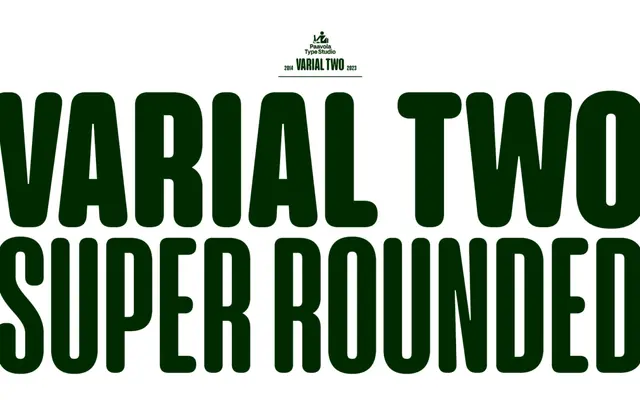
Varial Two Super Rounded
An extra-condensed geometric sans with heavily rounded terminals, offered in eight weights with matching italics, small caps and an extended Latin character set.
An updated iteration of the original Varial from 2014, this super-rounded variant pushes the terminal rounding to its limit across eight weights from ExtraLight to Ultra, each with an italic companion. The family includes small caps, discretionary ligatures, fractions and multiple stylistic sets, with broad Latin language coverage extending into Latin Extended-A and Extended-B ranges. It sits alongside the forthcoming Varial Two and Varial Two Rounded families as part of a wider refresh of the original design.
An extra-condensed sans-serif with heavily rounded terminals throughout, placing it firmly in the geometric sans category with a distinctive super-rounded stylistic treatment.